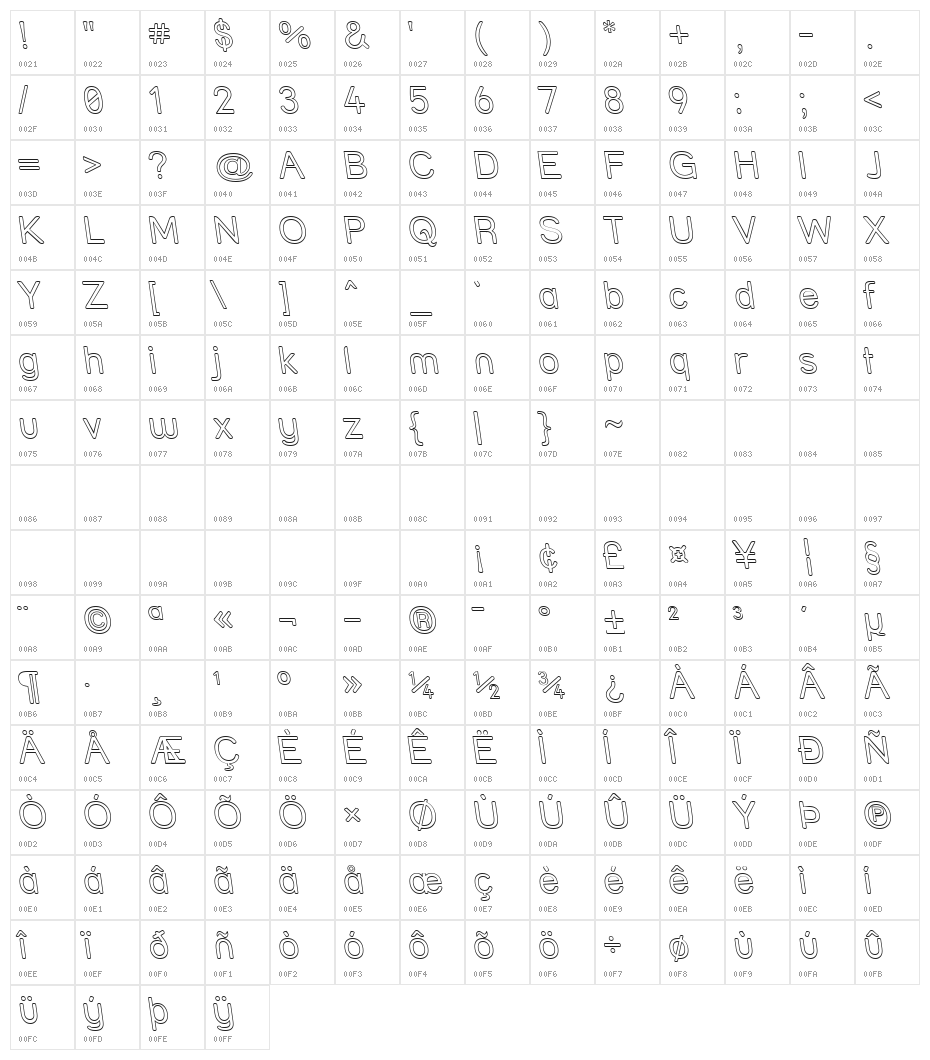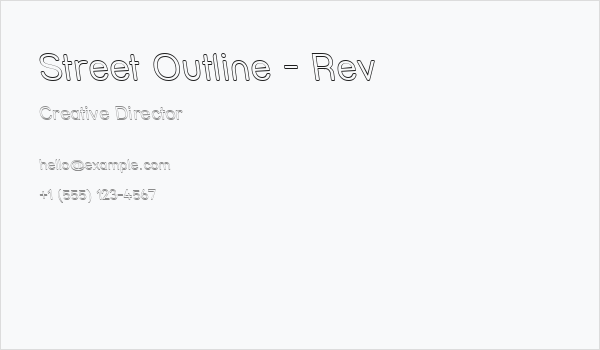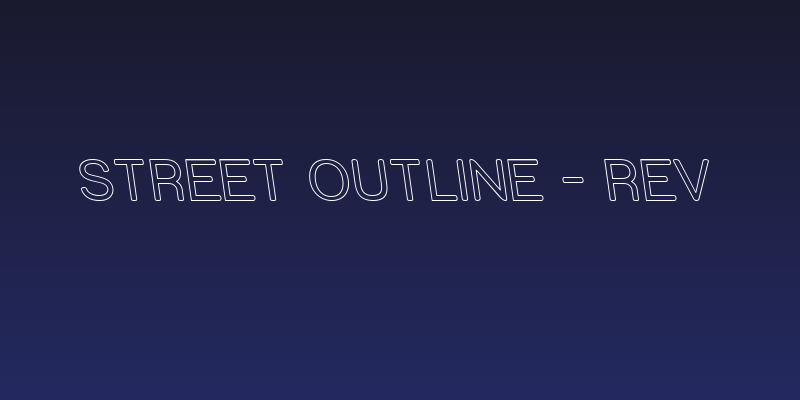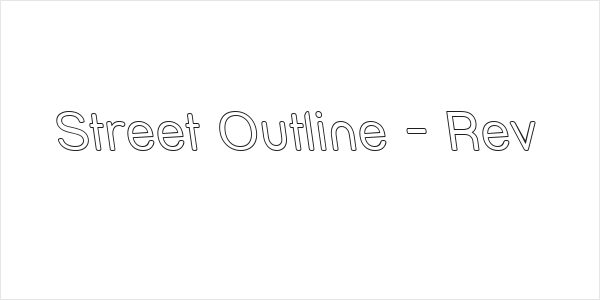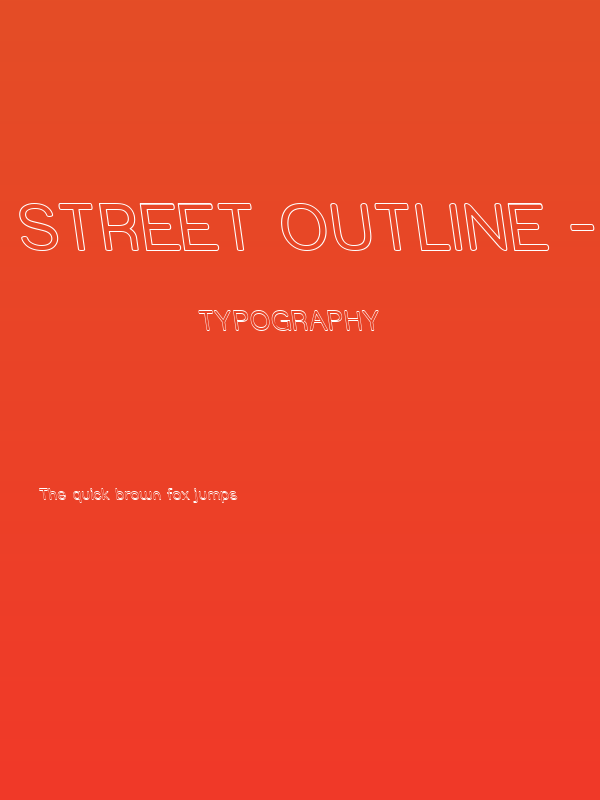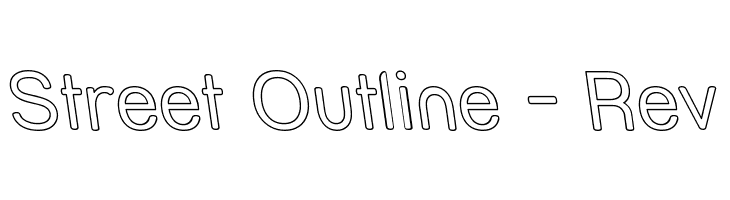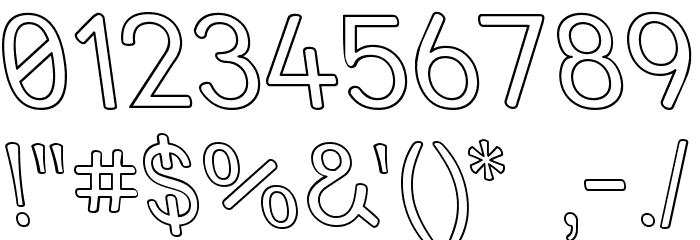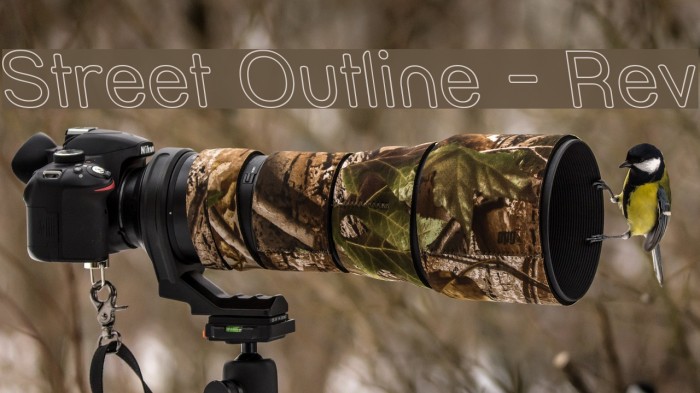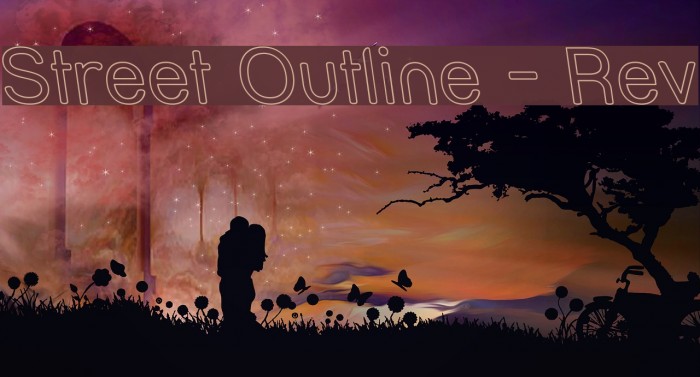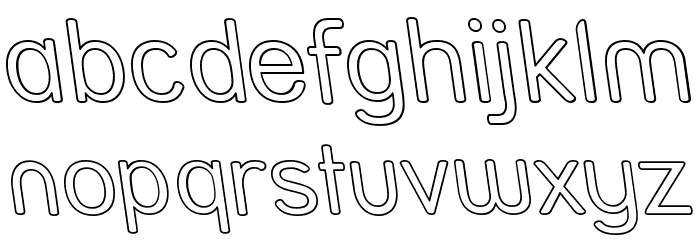
Street Outline - Rev Font
Street Outline - Rev Description
This font features a clean, modern outline style that gives it a distinctive and airy appearance. Each character is defined by a single line that traces the outer edges, creating a hollow effect. The uniform stroke width maintains consistency across all characters, enhancing readability while maintaining a unique aesthetic. The uppercase and lowercase letters are well-proportioned, with rounded edges that soften the overall look. Numbers and special characters are designed with the same outline style, ensuring a cohesive appearance throughout. This font's simplicity and clarity make it versatile for various design applications.